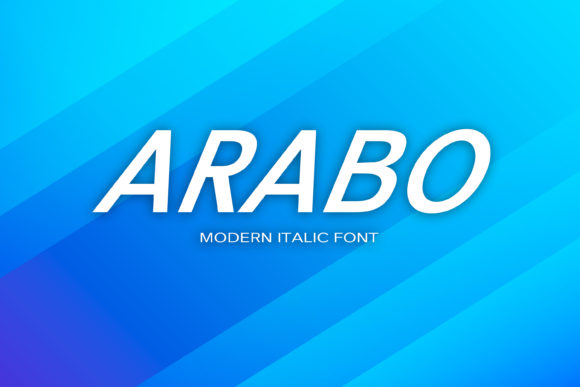
Unleash your creativity with Arabo, the font that embodies the essence of modern design. Inspired by the classic art of sign painting, Arabo seamlessly blends traditional charm with a contemporary flair. Its clean and minimal lines exude a captivating elegance that will elevate your designs to new heights.
Crafted with precision, Arabo effortlessly adds a touch of sophistication to any project. Its versatility knows no bounds, making it the perfect choice for a wide range of design endeavors. From striking logos that command attention to captivating headlines that leave a lasting impact, Arabo transforms ordinary words into works of art.
Elevate your business cards with Arabo, giving them a professional edge that sets you apart. Unleash your inner fashionista and design eye-catching t-shirts that will turn heads wherever you go. The possibilities are endless with Arabo, a font that empowers you to express your creativity in countless ways.
In a world saturated with fonts, Arabo stands out as a true gem. Its timeless appeal and versatility make it an essential tool for any designer seeking to create captivating and memorable designs. Embrace the power of Arabo and let your creativity soar.